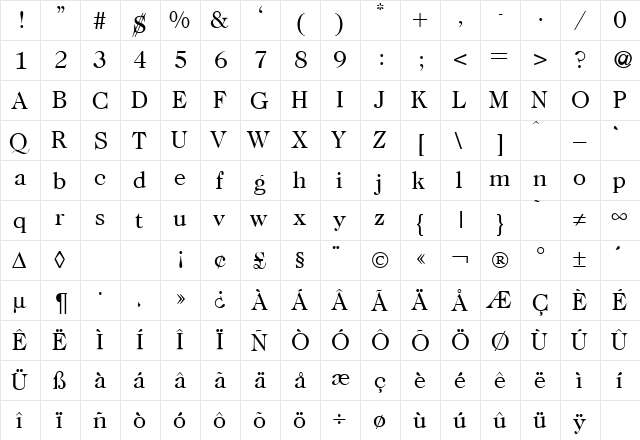
Caslon335 Regular
Design Context for Caslon335 Typeface
Caslon335 takes a measured approach to typography — its balanced proportions and neutral character make it a reliable workhorse for both digital and print work.